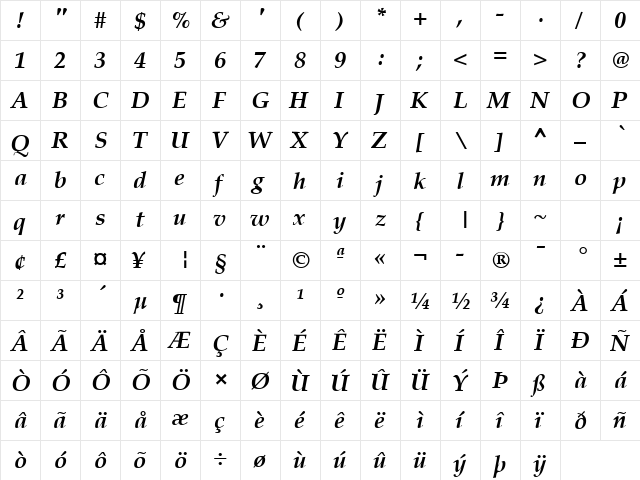
Palazzo Bold Italic
Design Context for Palazzo Typeface
Palazzo takes a measured approach to typography — its balanced proportions and neutral character make it a reliable workhorse for both digital and print work. The slanted form adds forward momentum and visual energy. The heavy weight commands attention and anchors typographic hierarchies.
Pro Tip: Use Palazzo for emphasis, pull quotes, and subheadings where its slanted energy can add rhythm to the layout.